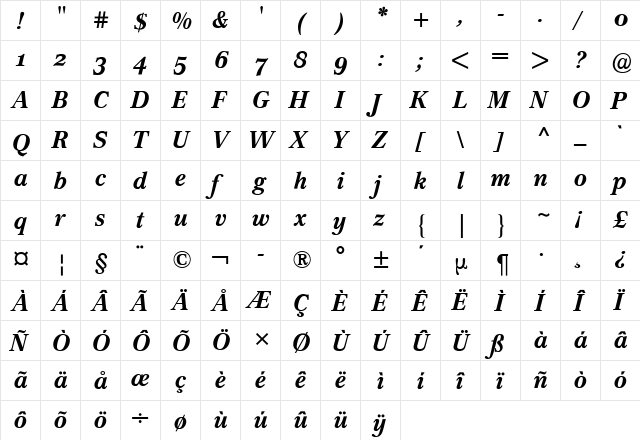
Cremona Expert BQ Bold Italic Font Preview
Design Context for Cremona Expert BQ Typeface
Cremona Expert BQ is a composed and adaptable typeface that performs quietly and consistently across a wide range of design contexts. The dynamic lean of this cut emphasises speed and emphasis in any layout. The heavy weight commands attention and anchors typographic hierarchies.